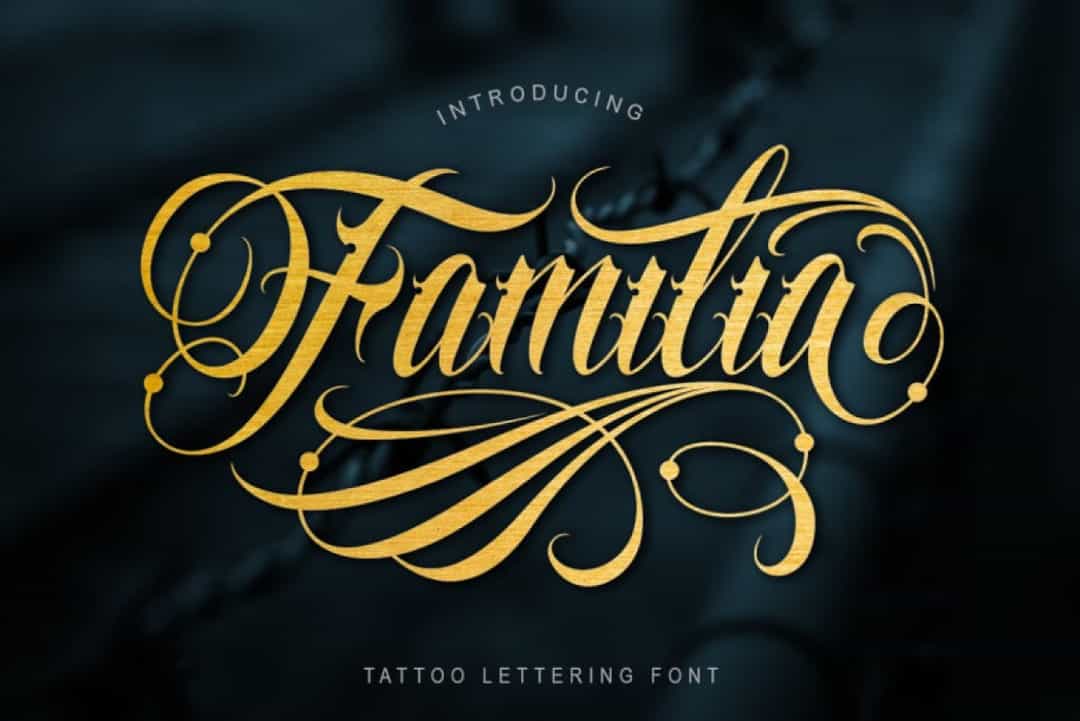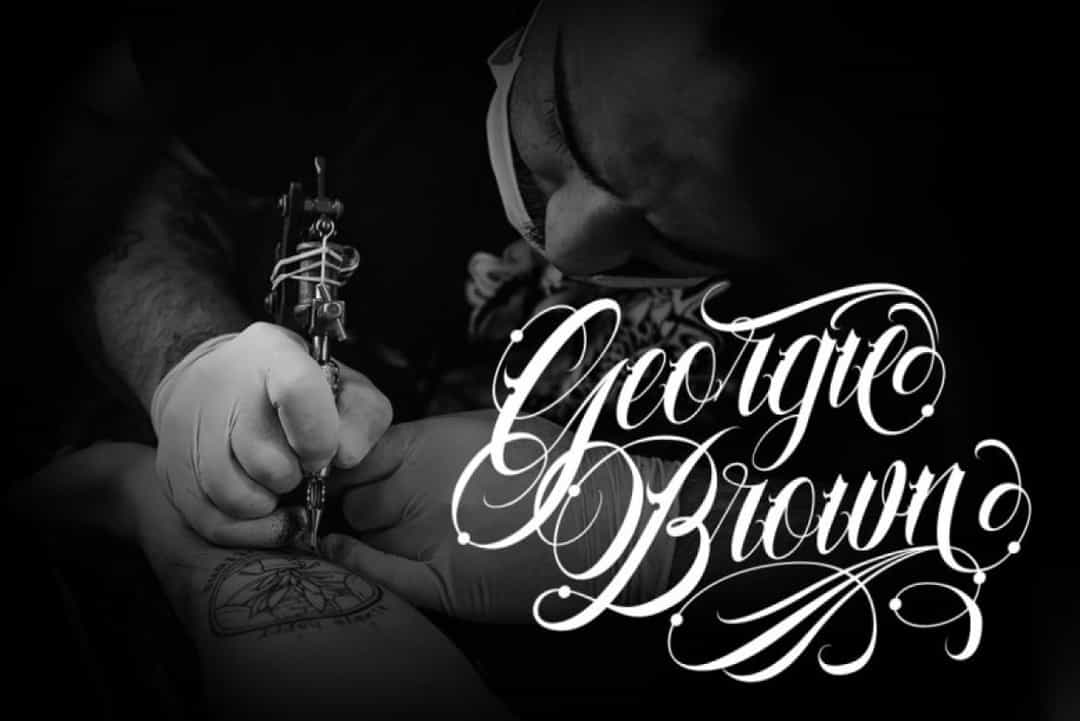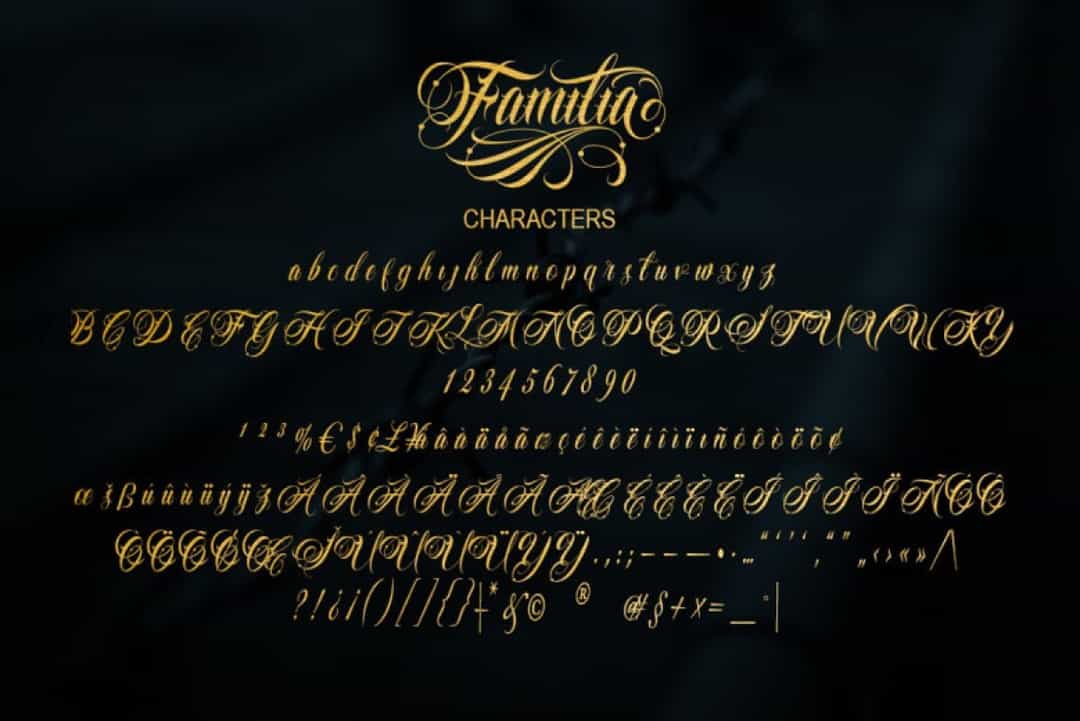
Familia is an elegant Tattoo The Lettering Font with more information for use as tattoo lettering, complete with uppercase numerals, letters, punctuation ligatures and multilingual languages. Lowercase letters all come complete with ending swashes as well as alternative font options.